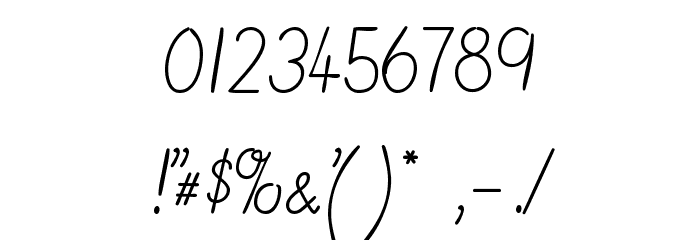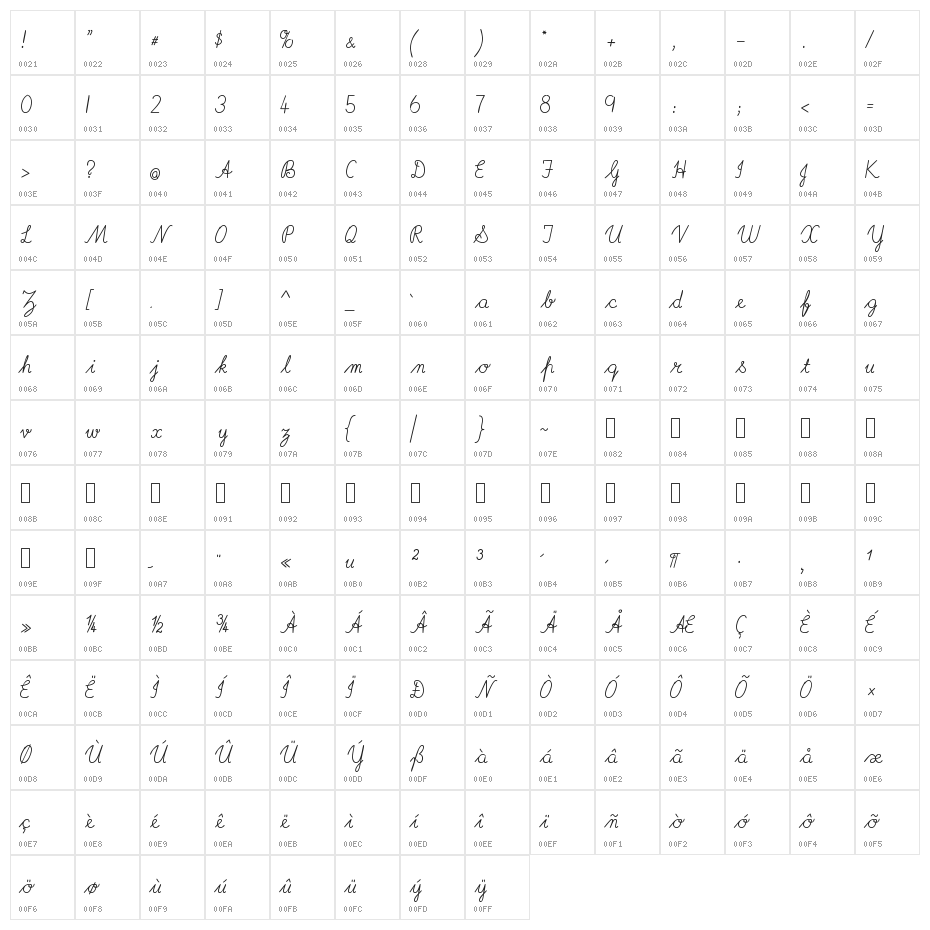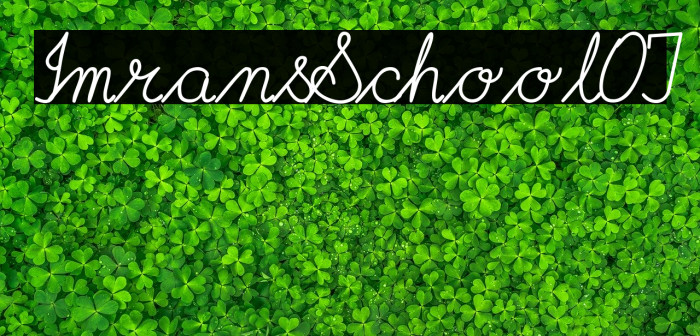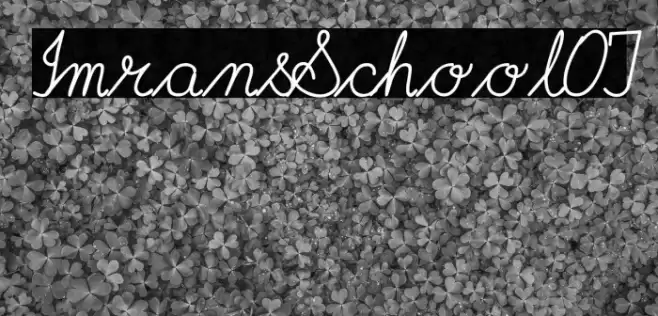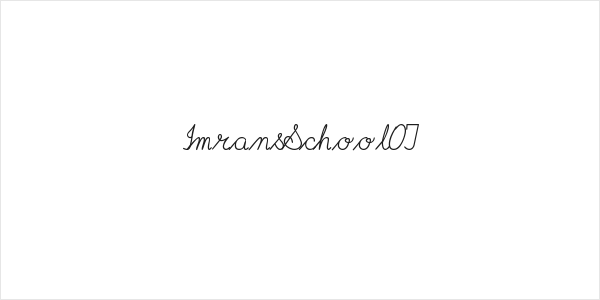
ImransSchoolOT Font
ImransSchoolOT Description
This font features a fluid and elegant cursive style, characterized by its smooth, flowing lines and connected letterforms. The uppercase letters are tall and slightly slanted, adding a touch of sophistication and grace. The lowercase letters maintain a consistent flow, enhancing readability while preserving the script's artistic flair. Numbers and special characters are designed to complement the overall style, ensuring a cohesive look across all text elements. The font's delicate curves and loops give it a handwritten feel, making it ideal for projects that require a personal touch.
| Proposed Projects | Ideal for wedding invitations, greeting cards, personal branding, and elegant stationery. |